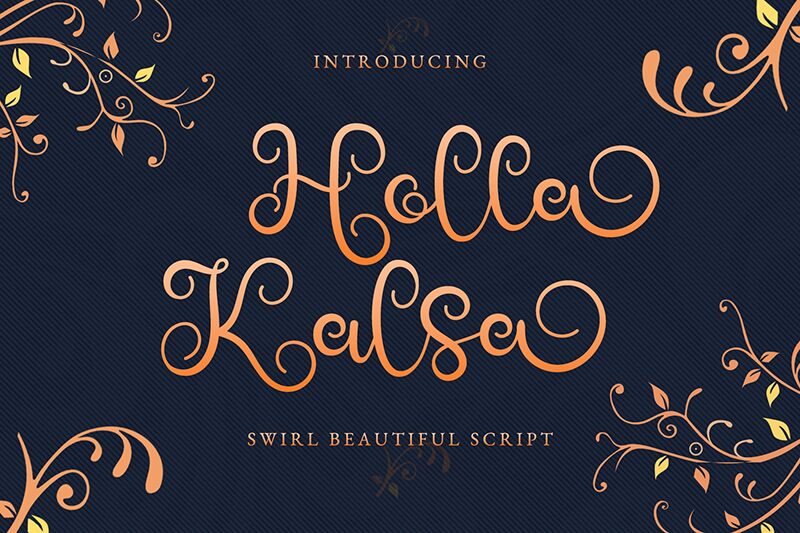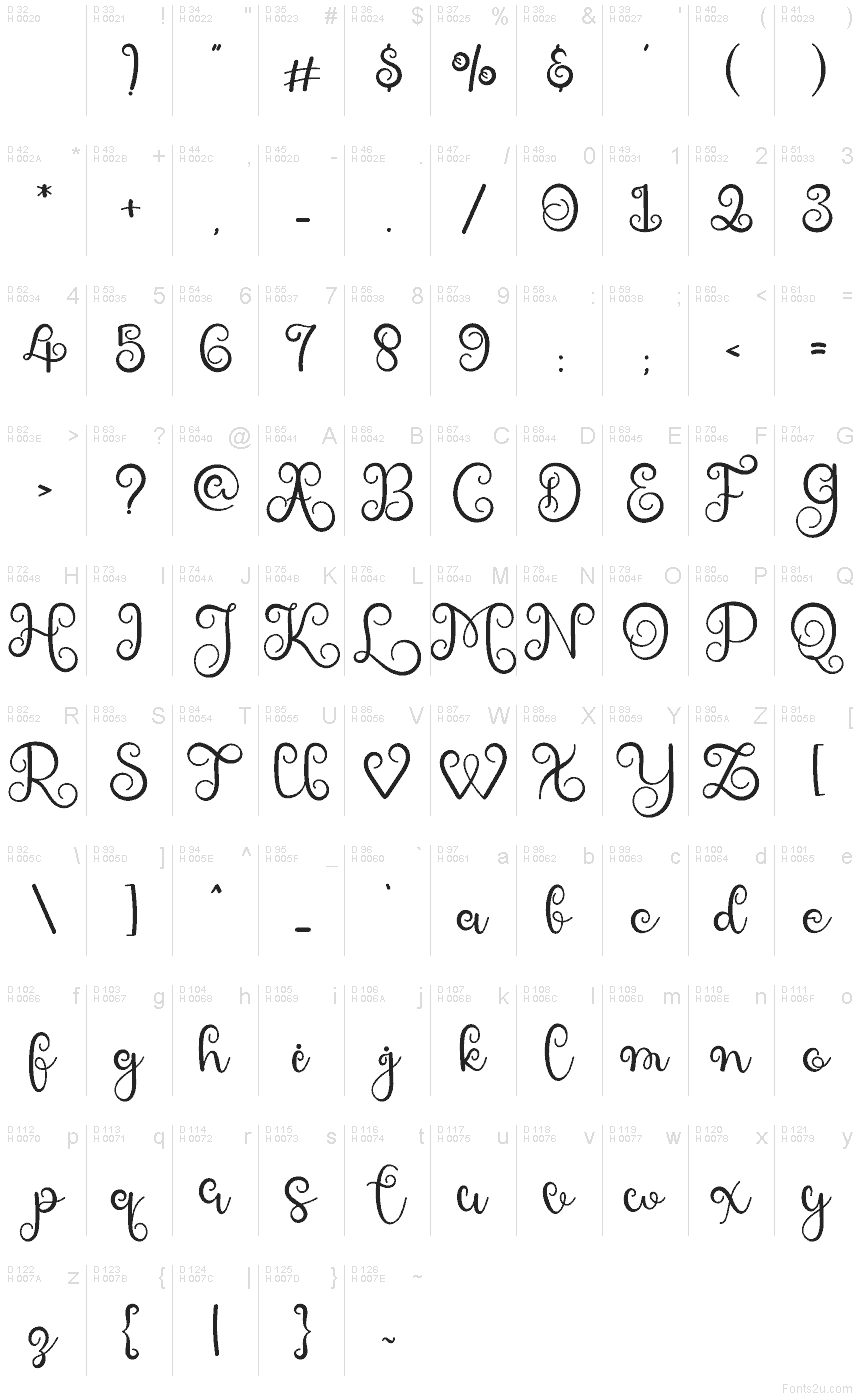
Holla Kalsa
Holla Kalsa font by Airotype Studio is a free curly script display typeface that feels like it’s been written with a satin ribbon dipped in ink. Tall looping letters, generous swirls, and a slightly irregular flow give it a hand-lettered charm that’s playful without getting messy. The strokes stay crisp and clear, so even with all the curls and flourishes, your words stay legible and lively at larger sizes.
Using Holla Kalsa, you can bring a whimsical, romantic touch to wedding invitations, save-the-dates, baby shower suites, boutique logos, packaging labels, social media quote graphics, and handmade product tags. This free font shines when you let it breathe in headlines or short phrases; pair it with a clean sans serif for body text to keep the look balanced and polished.